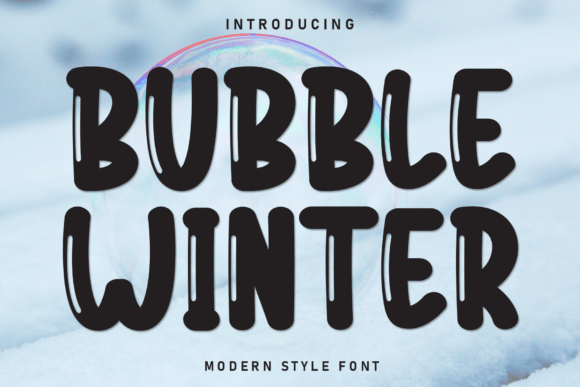
Get Ready to Bring Winter Wonderland to Life with Bubble Winter Font
As the snowflakes start to fall and the holiday season kicks in, designers are scrambling to create the perfect winter-themed projects. You’re sitting at your desk, staring at a blank canvas, and the task seems daunting. Suddenly, the idea hits you: a festive winter wonderland, complete with twinkling lights, snow-covered trees, and a hint of magic in the air.
That’s where Bubble Winter Font comes in – a bold and cheerful display typeface that’s specifically designed to bring a cozy, modern style to your seasonal designs. This playful font features thick, rounded letterforms with subtle glossy highlights, mimicking the look of shiny, frost-covered bubbles. With its heavy, friendly structure, Bubble Winter Font ensures your headlines remain legible and eye-catching against busy snowy backgrounds.
Bubble Winter Font Key Features
- Font Family: A unique, hand-drawn font with a winter-themed design, ideal for festive and holiday-related projects.
- Unique Characteristics: The font features intricate bubble-like designs, winter-themed icons, and a range of ornaments to enhance the festive atmosphere.
Bubble Winter Font Review
I recently had the chance to work with the Bubble Winter Font, and I must say it’s a mixed bag. Here are my thoughts:
- Unique design: The Bubble Winter Font has a distinct, playful style that’s perfect for adding some whimsy to your designs.
- Clean lines: The font’s clean lines make it easy to read, even at smaller font sizes.
- Good for headings: The font’s boldness makes it great for headings and titles.
- Limited versatility: While the font is great for playful designs, it may not be the best choice for more formal or serious projects.
- Not suitable for small text: The font’s boldness can make small text difficult to read, especially in body copy.
- Not a great choice for long text: The font’s playful style can become overwhelming when used for large blocks of text.
Overall, I’d say the Bubble Winter Font is a great choice for projects that need a playful, whimsical touch. However, it may not be the best choice for more formal or serious projects. With some careful planning and use, this font can add a lot of personality to your designs.
Use the Bubble Winter Font to create festive winter graphics, such as snowflake invitations or holiday cards.
Use the Bubble Winter Font to create custom winter graphics, such as snow globe illustrations or winter wonderland typography.
Use the Bubble Winter Font to create festive winter presentations or holiday documents.
Some tips for getting the most out of the Bubble Winter Font include:
- Using the font in combination with winter-themed graphics and colors.
- Experimenting with different font sizes and styles to create visual interest.
- Using the font to create custom winter-themed invitations and cards.